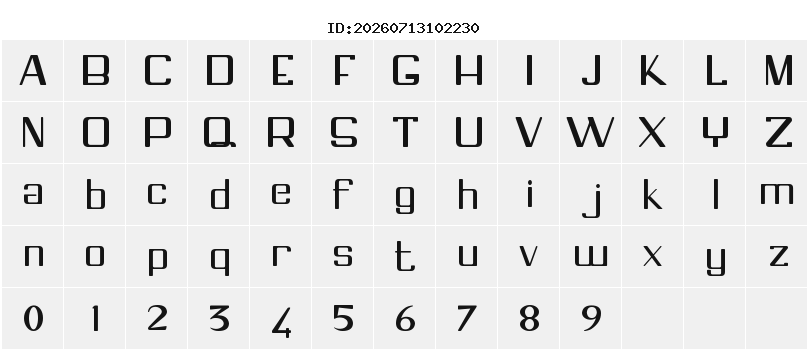
• Font Name: Ranger
• Full Font Name: Ranger Regular
• Designer: Allan Matthews
• Description: Techno - Display typeface
About Ranger.ttf
Ranger.ttf is a modern, elegant sans-serif font designed for ultimate readability and visual harmony. Perfect for branding, headlines, web design, and print materials.